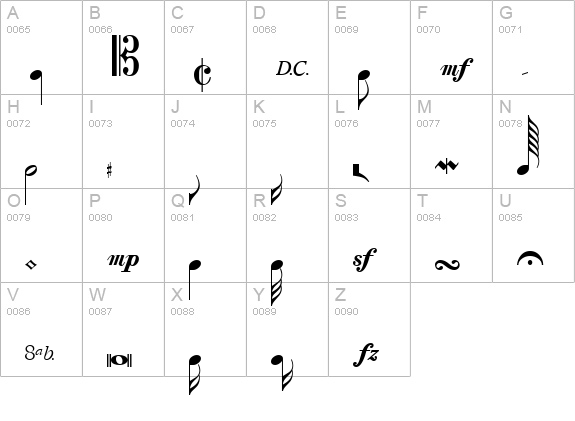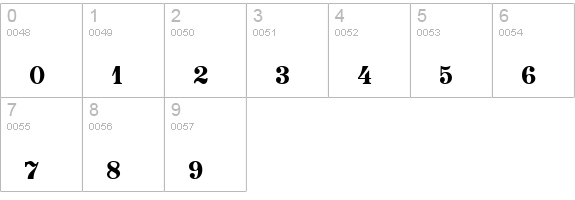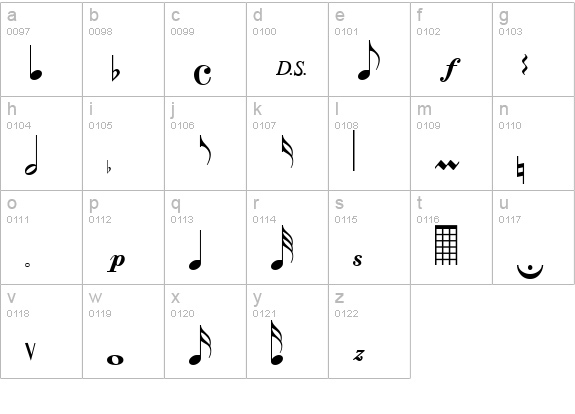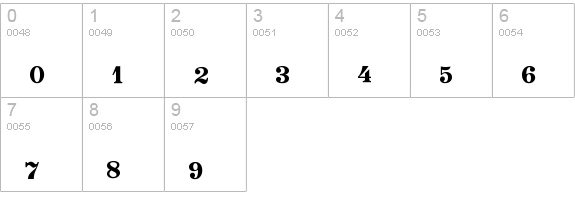
Composer Regular Font Details
Composer Regular is the standard, neutral variant in the Composer typeface family \xE2\x80\x94 well suited to general body text, paragraphs, and standard typographic work.